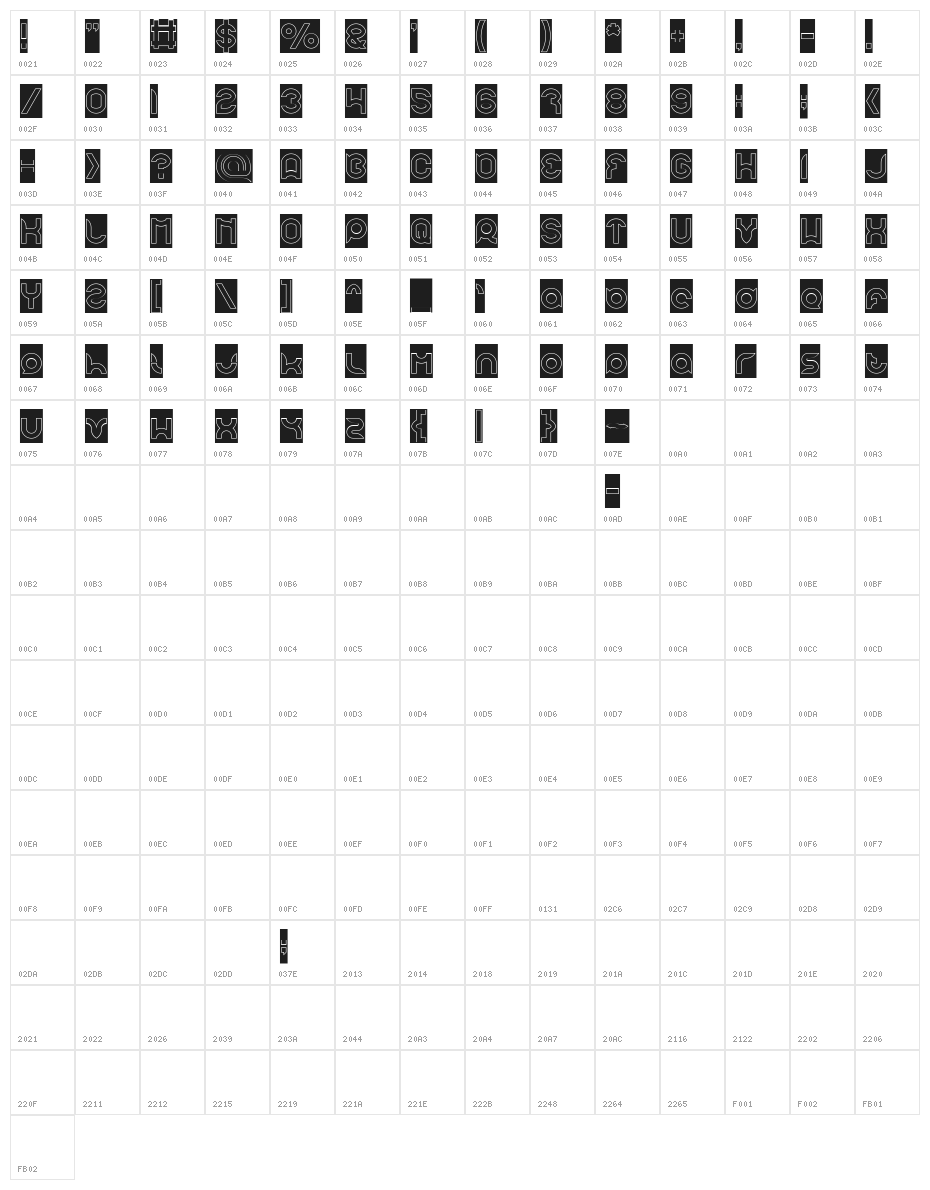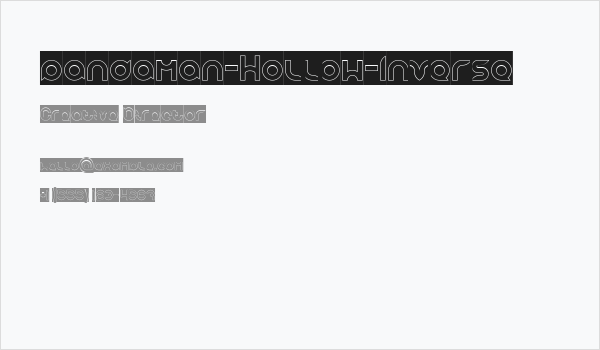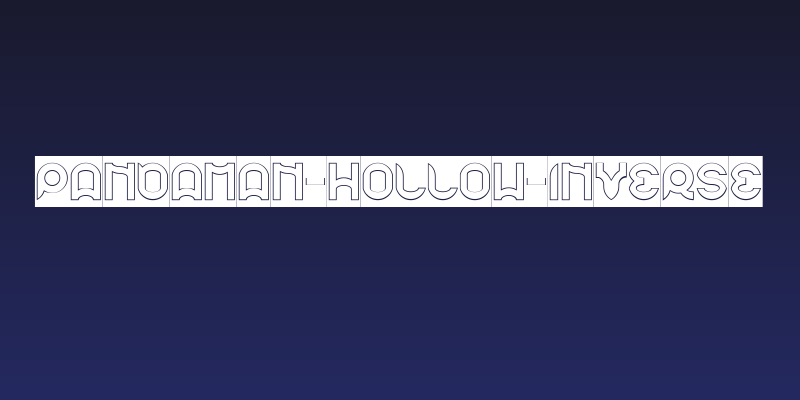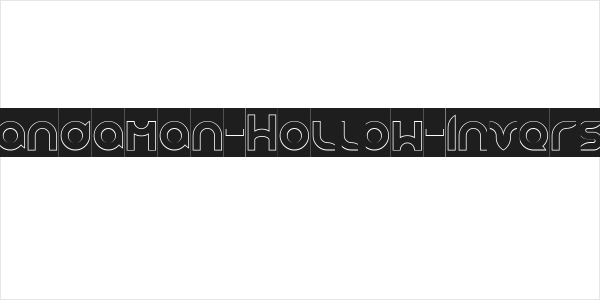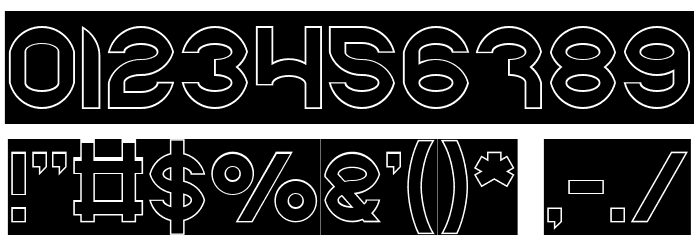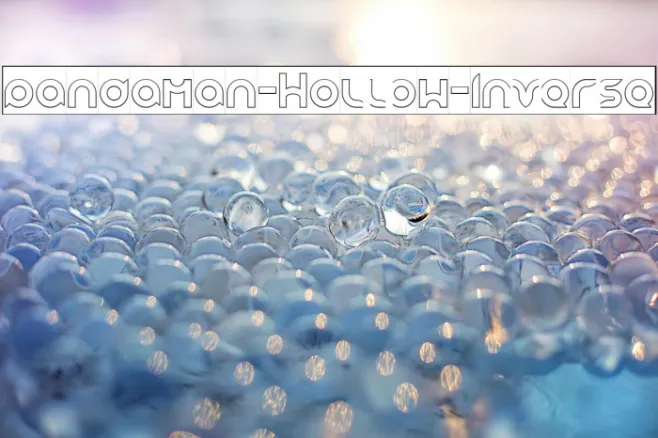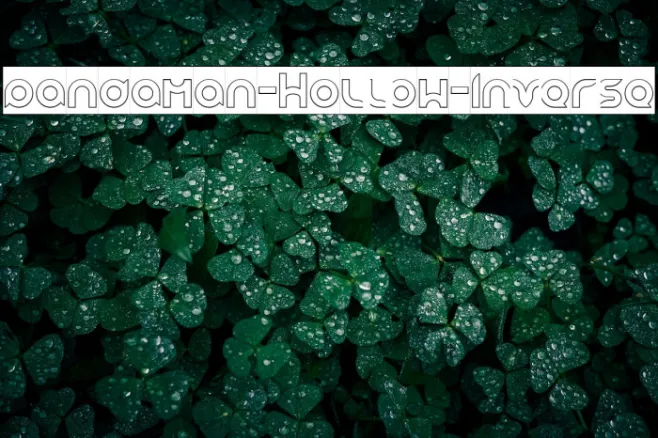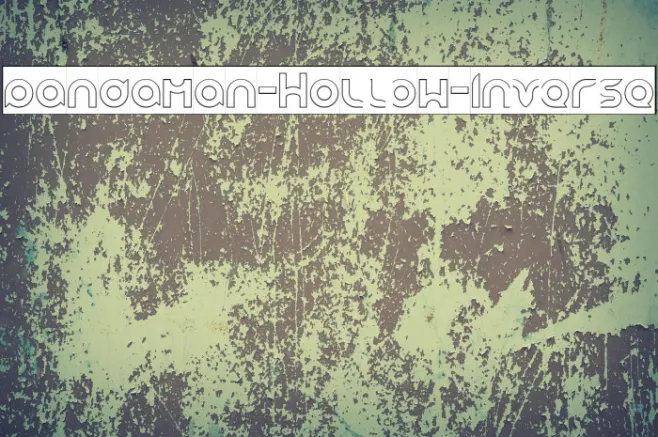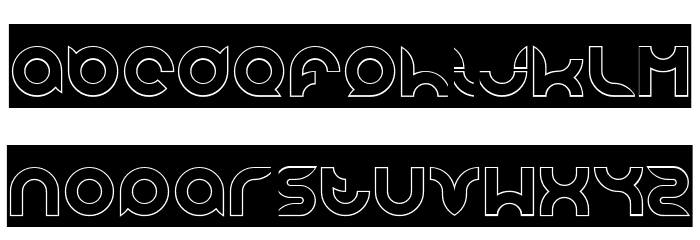
pandaman-Hollow-Inverse Font
pandaman-Hollow-Inverse Description
This font features a hollow, inverse design with a modern and geometric aesthetic. The characters are outlined, creating a striking visual effect that stands out against a dark background. Each letter and number is crafted with precision, maintaining a consistent line thickness throughout. The uppercase and lowercase letters share a cohesive style, with rounded edges and a futuristic feel. The numerals and special characters are designed to match the overall theme, making this font versatile for various applications. Its unique appearance makes it ideal for eye-catching designs.
| Proposed Projects | Ideal for branding, posters, digital artwork, and any project requiring a bold, modern look. |